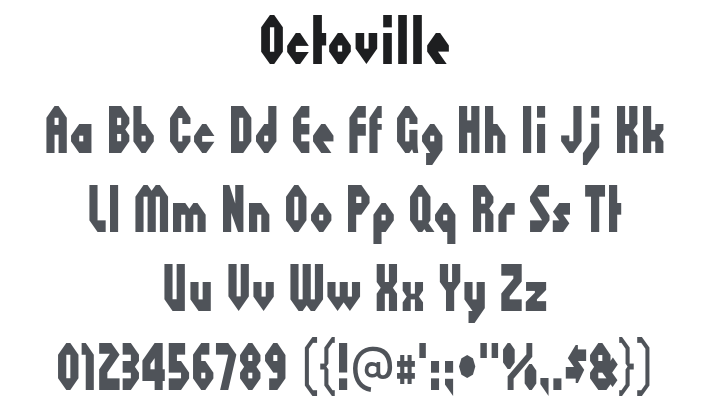
Octoville Font
About Octoville
Octoville is a bold, octagonal techno display typeface with precisely chamfered corners on every letterform — each stroke-end is clipped at a consistent 45-degree angle, giving text a severe, cybernated authority that feels engineered rather than drawn. Its clean, linear geometry is uncompromising and precise. Perfect for sci-fi branding, military-themed designs, industrial signage, cyberpunk game titles, and any headline demanding cold, technological persuasion.